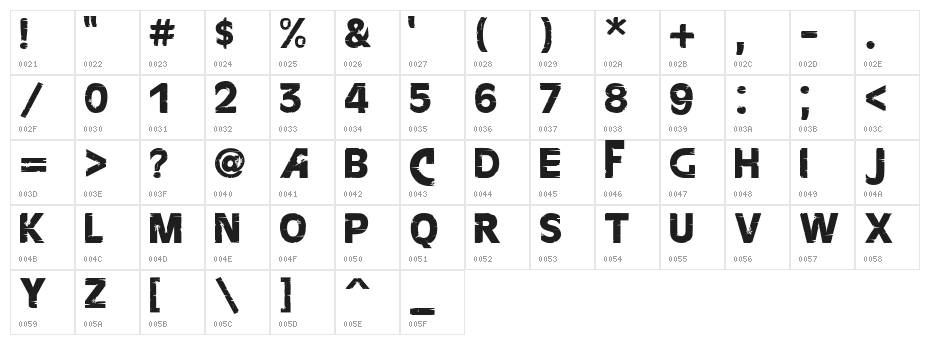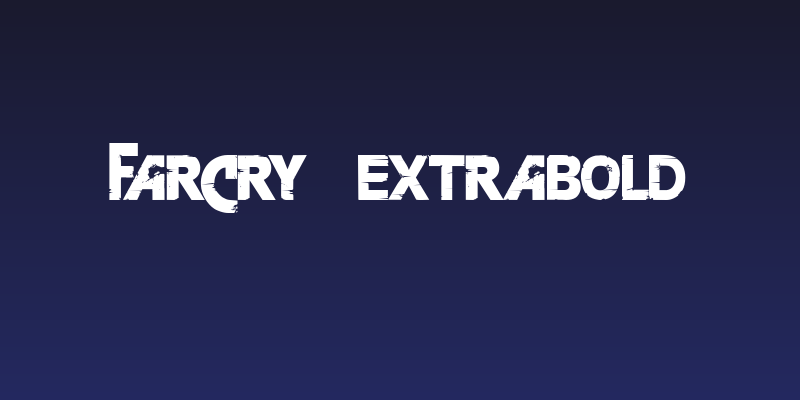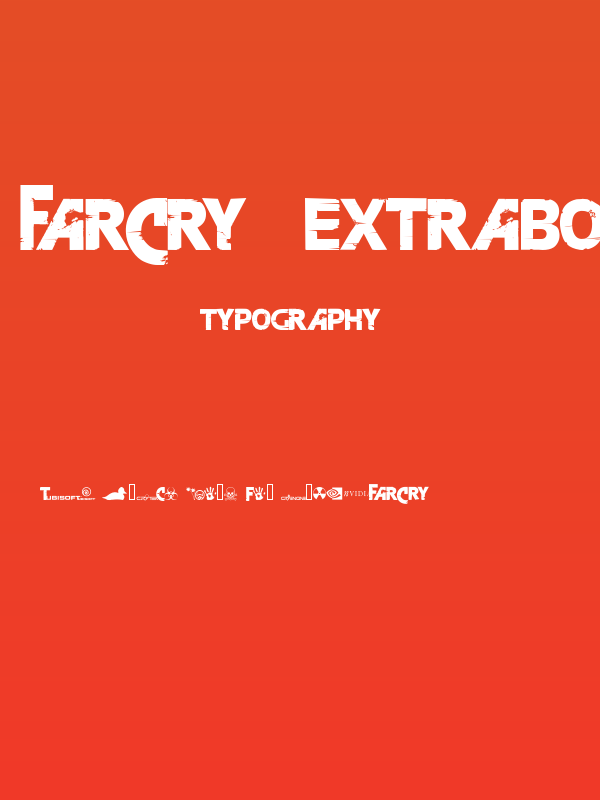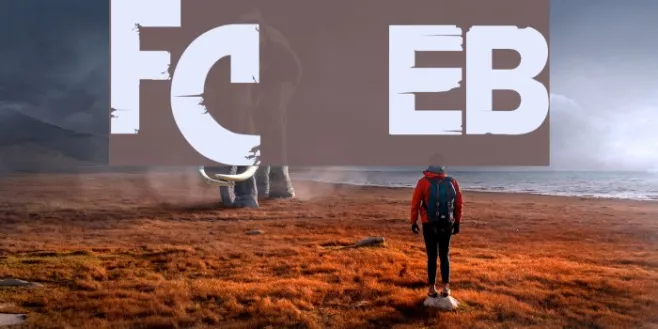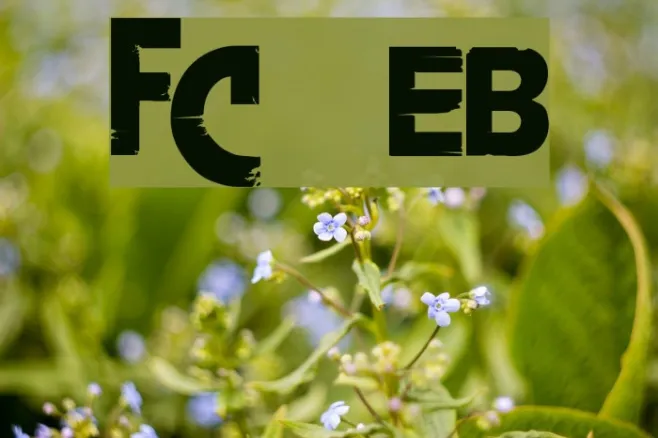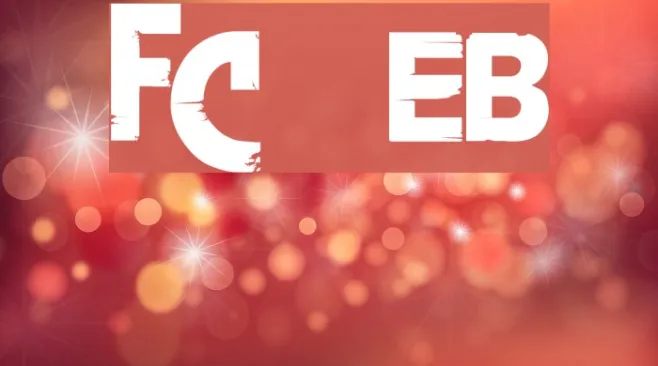
FarCry ExtraBold Font
FarCry ExtraBold Description
This font features a rugged, distressed style with a bold and impactful presence. The characters are heavily textured, giving them a worn and weathered appearance, reminiscent of graffiti or urban decay. The uppercase letters are particularly striking, with sharp angles and a blocky structure that commands attention. The numerals and special characters maintain this distressed aesthetic, ensuring consistency across all glyphs. This font is designed to stand out, making it ideal for projects that require a strong visual impact.
| Proposed Projects | Ideal for video game titles, movie posters, branding for extreme sports, and any project needing a gritty, impactful look. |